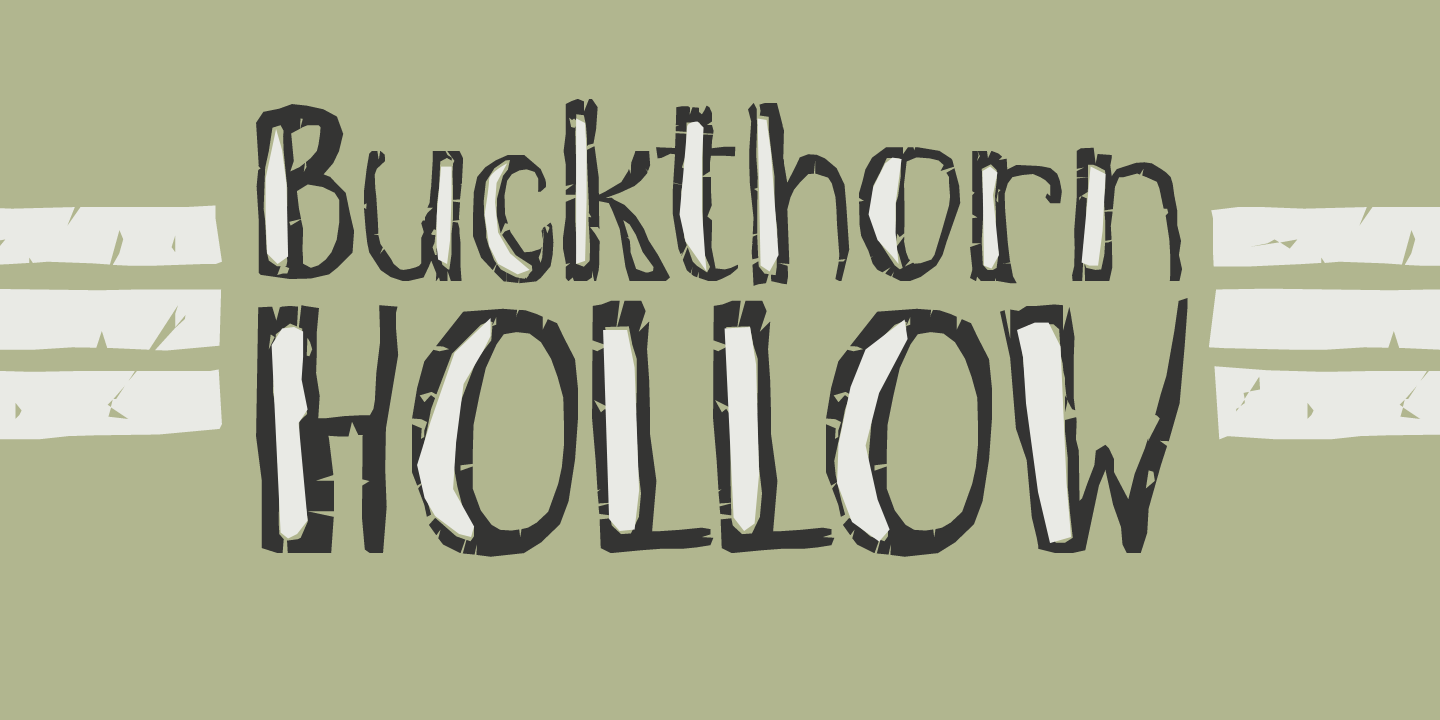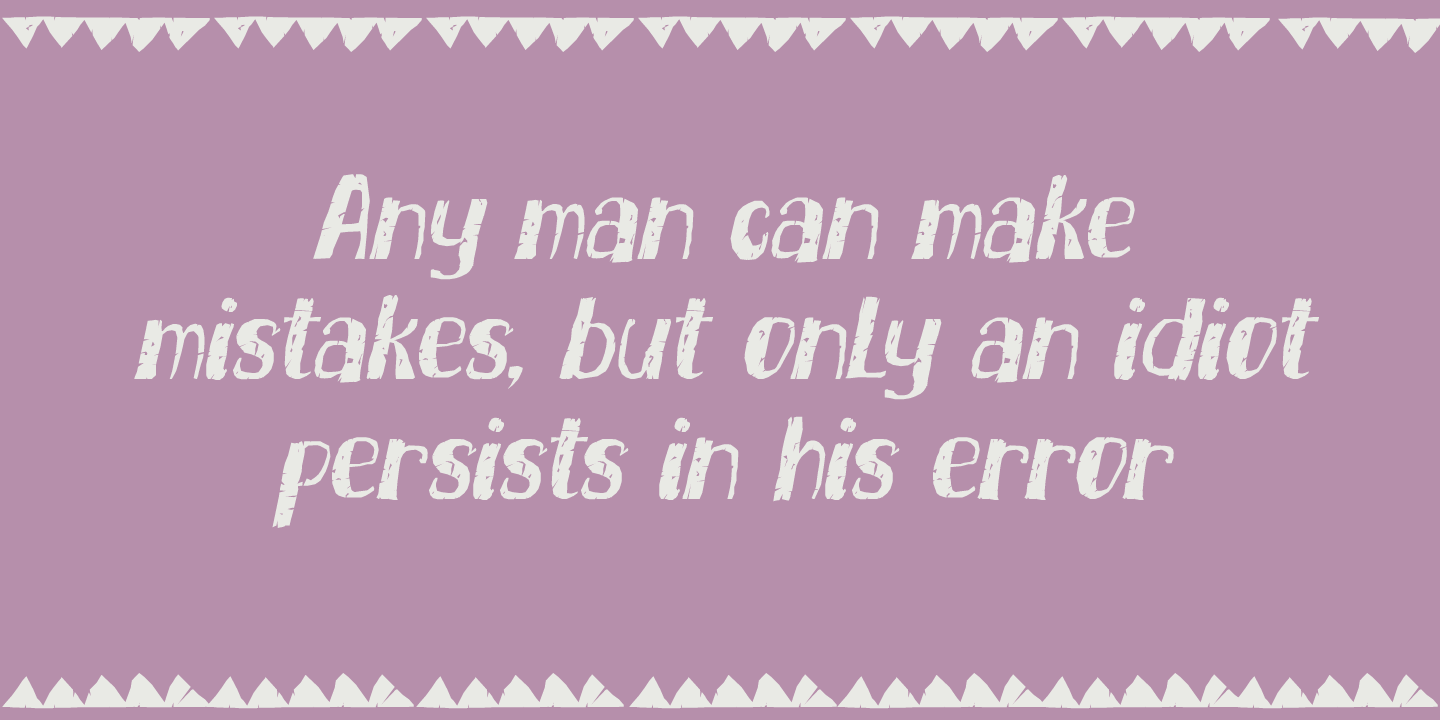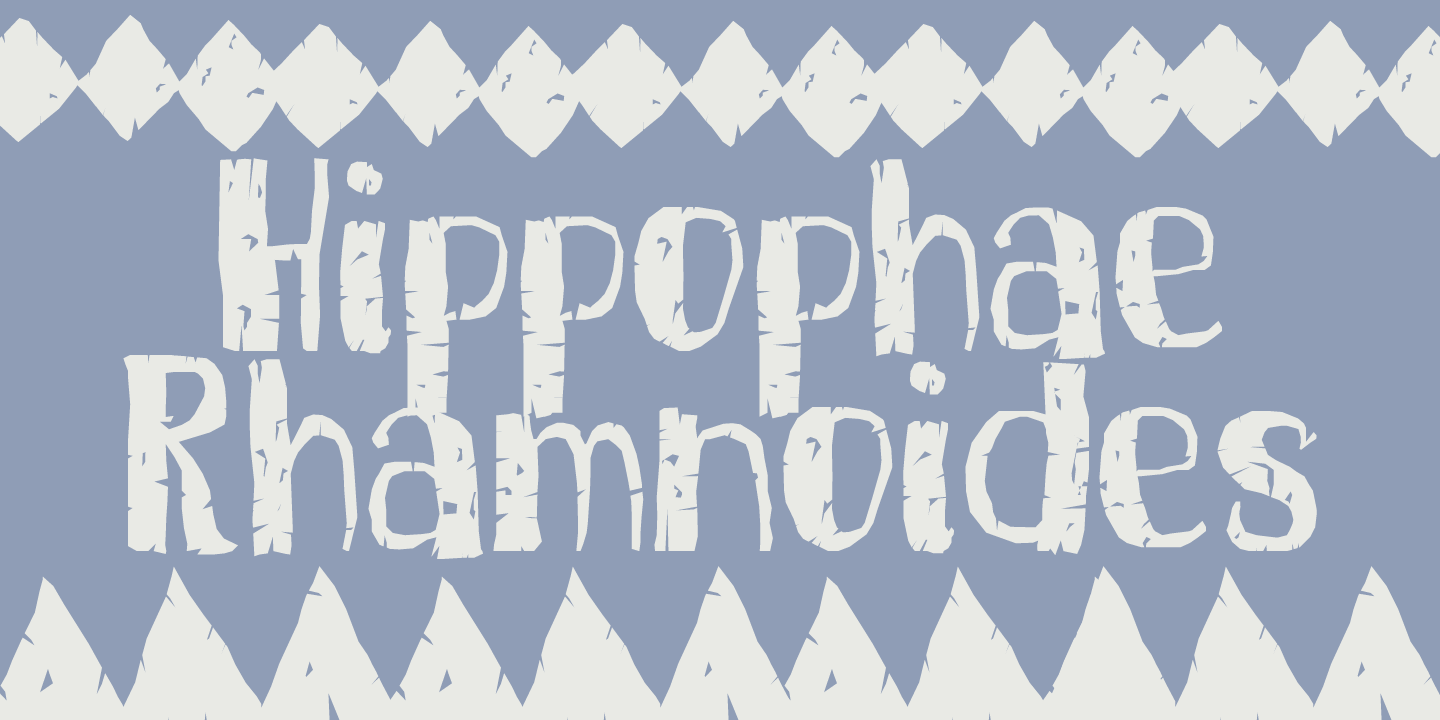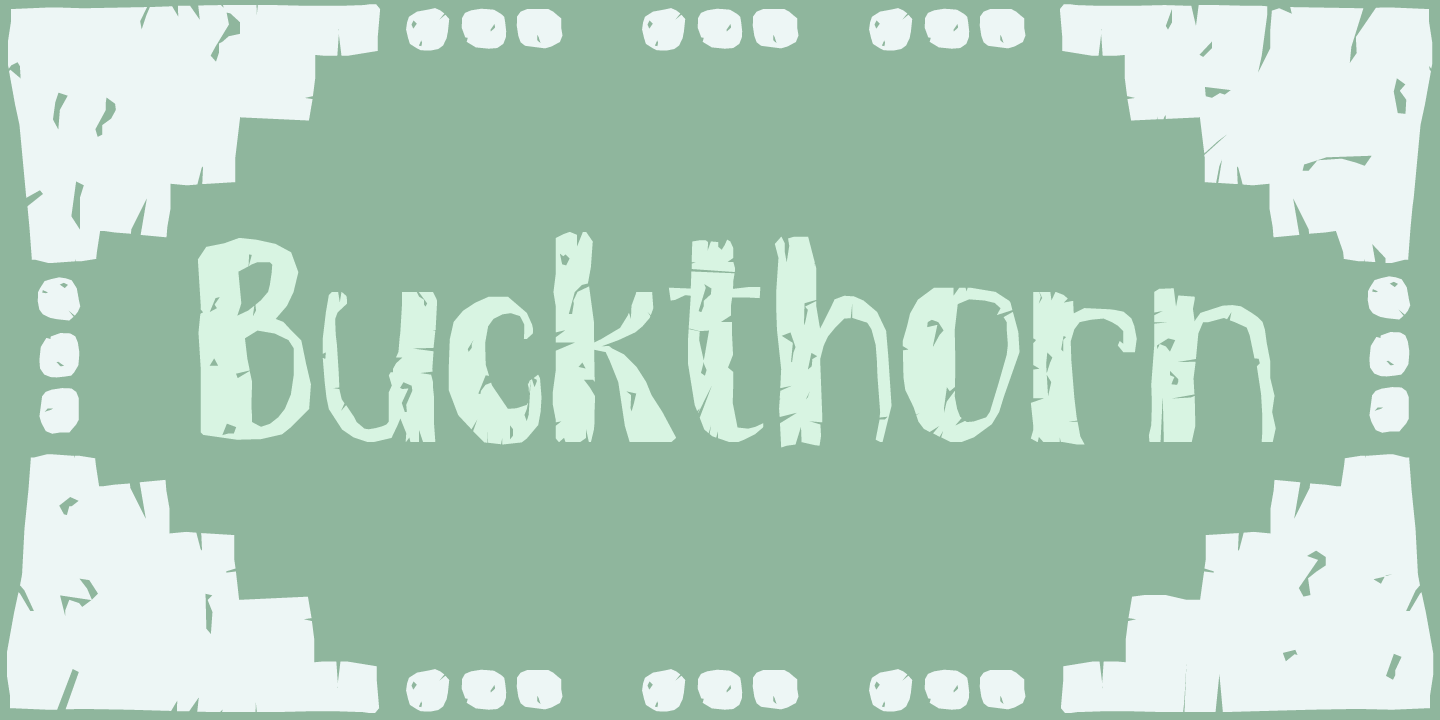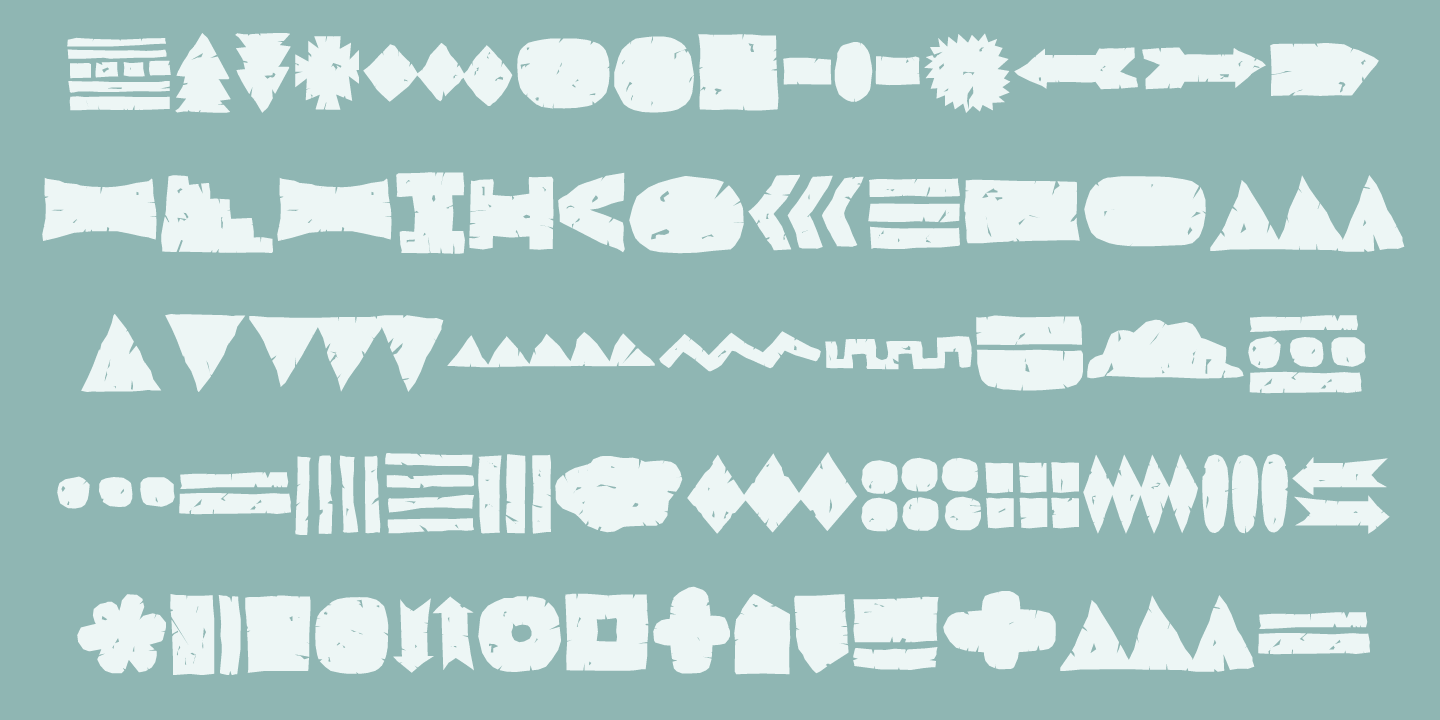
Buckthorn is a genus of about 110 species of shrubs and small trees, native to North America and Asia. Its uses are varied: it is used for dye, oil, printing ink and oil.
That concludes the botany class for today, on with Buckthorn ‘The Font’. Buckthorn is a handmade typeface with a lot of character. It is severely eroded, giving your designs an authentic look. It comes in 4 styles, including a ‘hollow’ style, plus a dingbat font with very nifty shapes. Buckthorn is quite a pleasing font and comes with a rich harvest of diacritics.
OpenType features: Alternates